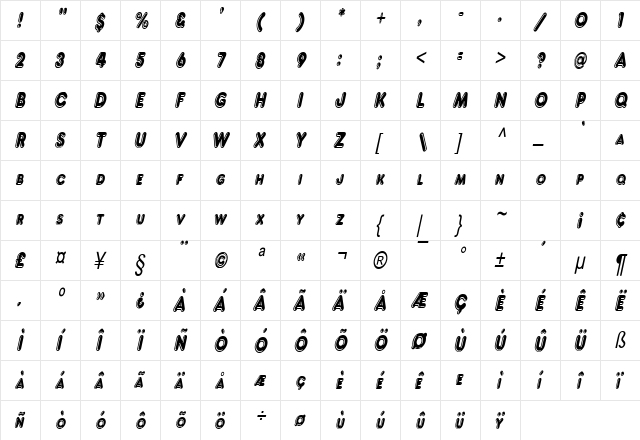
Francis High Lighted Condensed Italic Font Preview
Design Context for Francis High Lighted Condensed Typeface
Francis High Lighted Condensed takes a measured approach to typography — its balanced proportions and neutral character make it a reliable workhorse for both digital and print work. The dynamic lean of this cut emphasises speed and emphasis in any layout. Its slender proportions lend an understated elegance to any composition. The condensed width makes it efficient for tight spaces without sacrificing legibility.